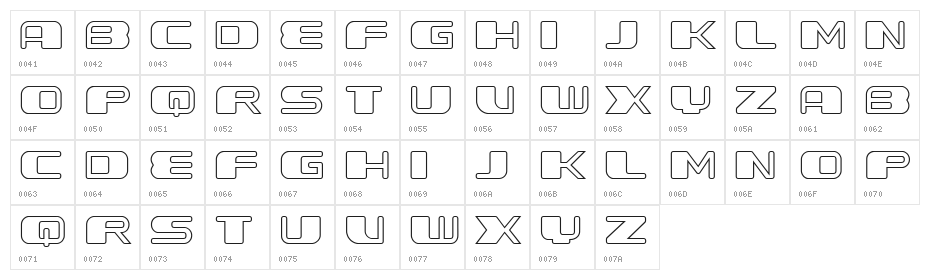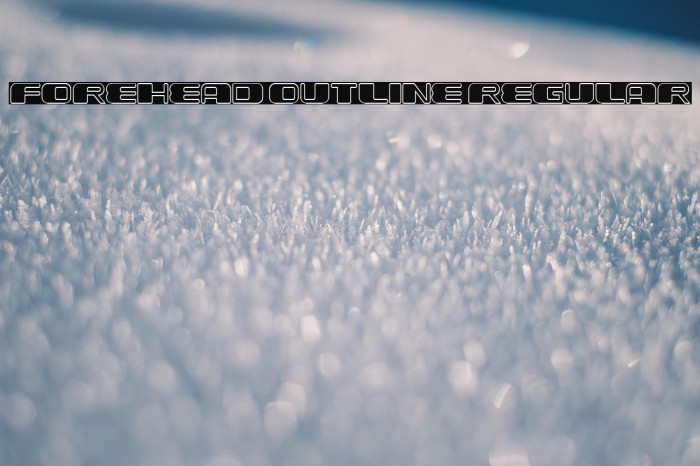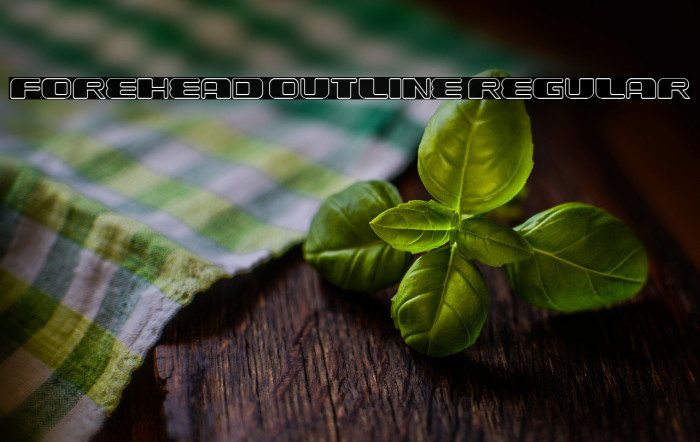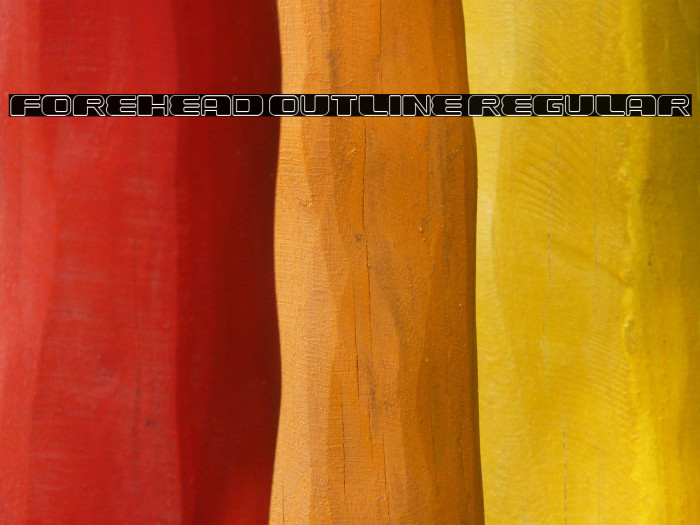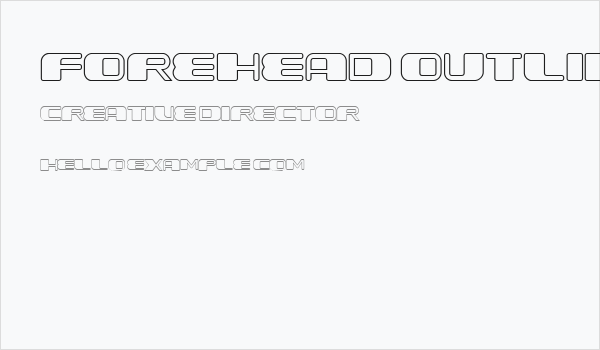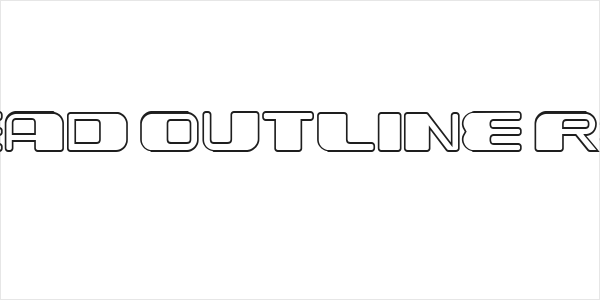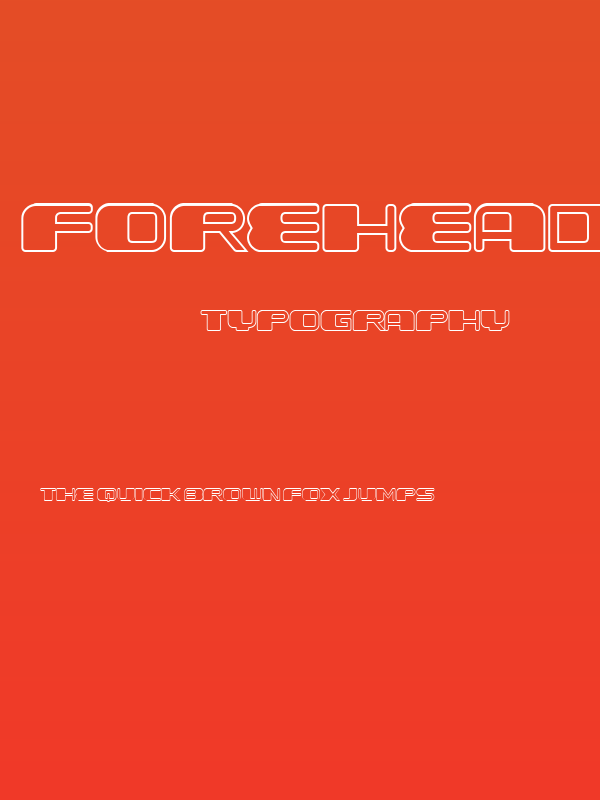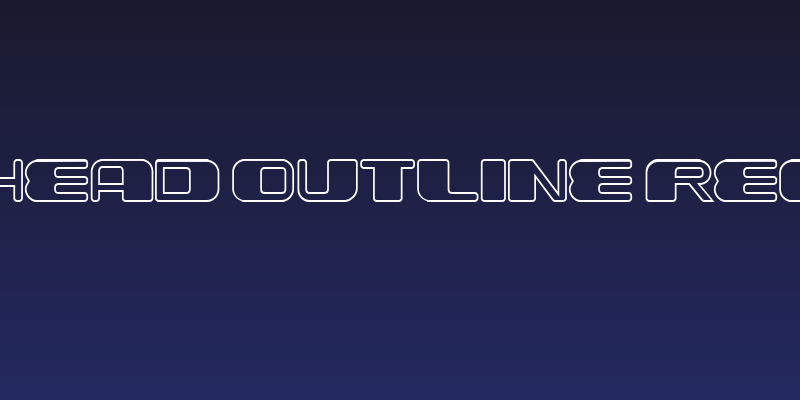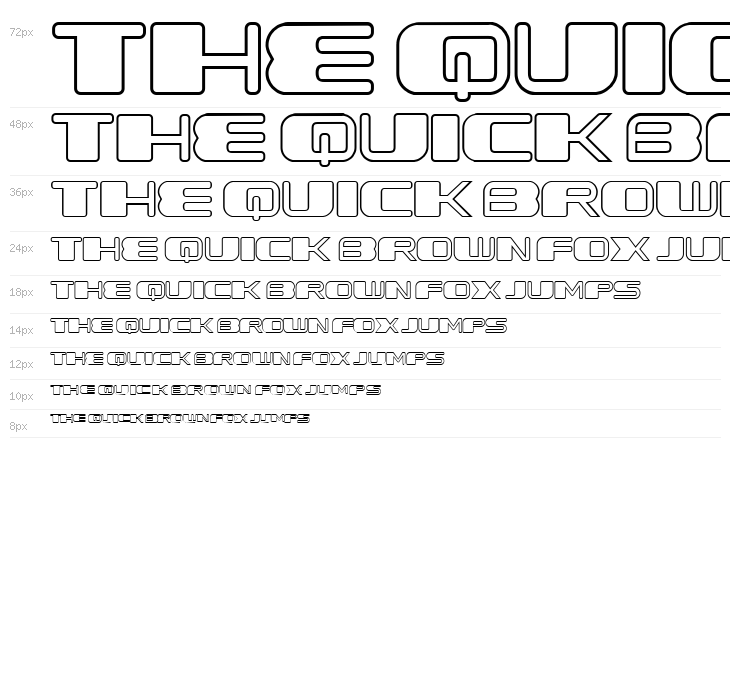
Forehead Outline Regular Font
Forehead Outline Regular Description
This font features a bold, geometric outline style that emphasizes a futuristic and modern aesthetic. Each character is crafted with precision, showcasing clean lines and a uniform thickness throughout. The uppercase letters are particularly striking, with a consistent height and width that create a harmonious visual flow. The font's design is minimalistic yet impactful, making it suitable for various creative applications. Its outline nature allows for versatility in design, as it can be layered or filled with color for added effect. The characters are evenly spaced, ensuring readability while maintaining a distinct and stylish appearance.